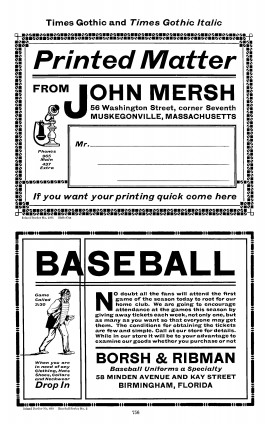
Four Grotesk
HAL Four Grotesk is an elegant yet reliable addition to the vast, undying sans-serif genre. Inspired by “Empire Gothic”, originally published in 1912 by Keystone Type Foundry (also cast by Miller & Richard as “Grotesque No. 4 Italic” and American Type Founders as “Times Gothic Italic”), these boldly authentic, italicised styles from a century ago laid the foundation for further developing HAL Four into a versatile, all-purpose neo-grotesque. Four’s overall appearance is bound by neutral and friendly shapes whilst simultaneously embodying an individual personality to stand out in the crowd. Download Specimen
Opentype feature: alternate “y” and “j”
Opentype feature: alternate (single-story) “a”, alternate “Q”, alternate “a”
Opentype feature: alternate “6” and “9”, alternate “4”, slashed zero
Empire Gothic, Keystone Type Foundry
Grotesque No. 4 Italic, Miller & Richard
Times Gothic & Times Gothic Italic, American Type Founders